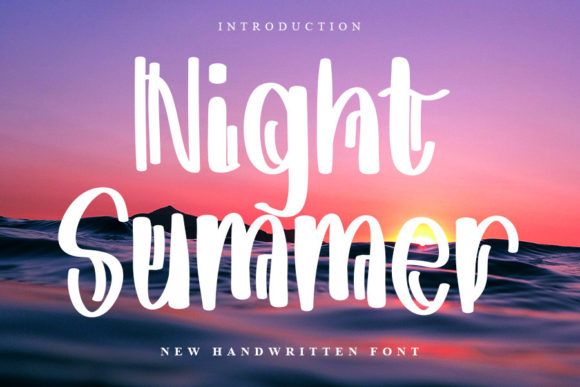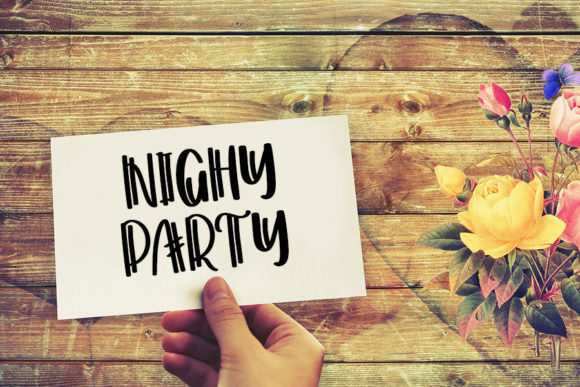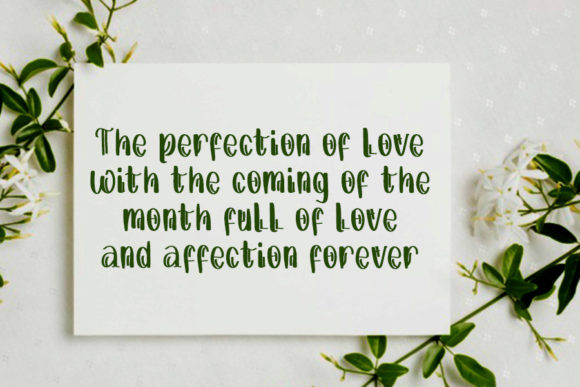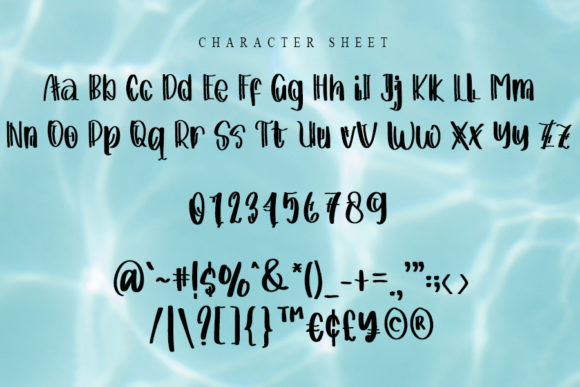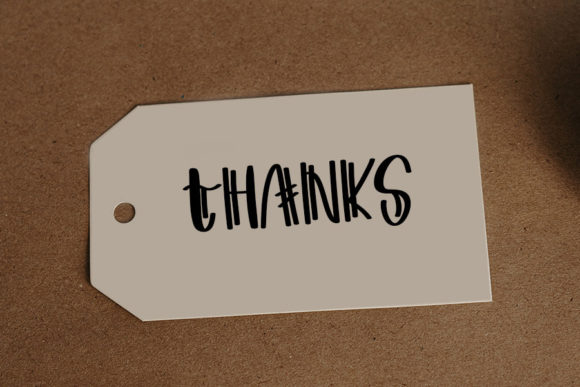
Night Summer Font
About Night Summer Font
Introducing Night Summer, a thick lettered yet bold and trendy handwritten font that adds a stylish and contemporary touch to your designs. This font is perfect for fashion branding or editorial designs, allowing you to confidently enhance your projects with its unique and eye-catching style.
Night Summer’s thick letterforms and bold design set it apart as a font that captures attention and adds a trendy and modern aesthetic to your compositions. Each letter is crafted with boldness and confidence, creating a visually appealing composition. This combination of thick lettering and trendiness adds a powerful and captivating element to your designs, making them stand out.
The versatility of Night Summer allows it to shine in various design contexts. Whether you’re working on fashion branding, editorial layouts, magazine covers, social media graphics, or any other creative endeavor, Night Summer adds a touch of boldness and trendiness. Its handwritten nature creates a visually engaging and contemporary aesthetic that enhances the overall visual appeal.
Night Summer’s thick letterforms and bold style make it suitable for a wide range of designs. The powerful and confident look of the letters makes it perfect for adding a statement to your projects. Whether used for creating fashion branding, editorial designs, or any other application, Night Summer brings a sense of boldness and trendiness.
No matter the design context or project, Night Summer has the potential to enhance any creation. Its thick letterforms and trendy style make it suitable for various design projects. Let Night Summer add a touch of boldness and trendiness to your designs, creating visually captivating compositions that leave a lasting impression.
In summary, Night Summer is a thick lettered yet bold and trendy handwritten font that adds a stylish and contemporary touch to your designs. Its bold letterforms capture attention while maintaining a trendy and modern aesthetic. Embrace the versatility of Night Summer and confidently add it to your fashion branding or editorial designs, creating visually captivating compositions that leave a lasting impression.